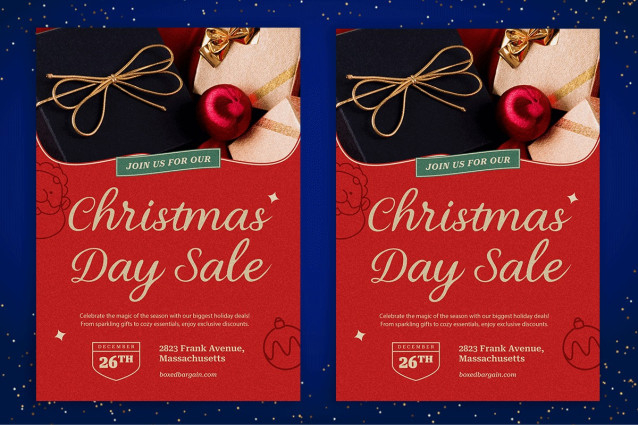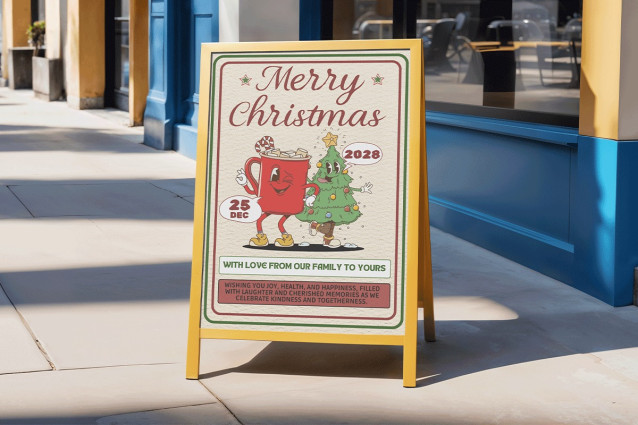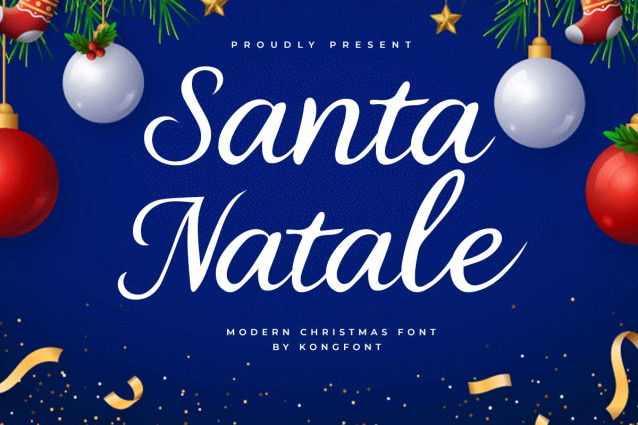
Santa Natale Script Font
Santa Natale Script Font is back with a new type of Christmas font. Santa Natale A Modern Script Font was designed to increase the variety of options available to users of the Christmas font. Of course, this is an advantage for the user, because the font you use is unique and modern. Santa Natale A Modern Script Font has characteristics like continuous Latin writing. It looks aesthetic, elegant, and smooth. Atlantis font is also suitable to be called a modern font. The appearance is advisable to be combined with a variety of contemporary products. Given how interesting the characteristics are, Santa Natale A Modern Script Font is one of the best Christmas fonts when used in clothing items designs such as t-shirts, jackets, and hoodies). In addition, it is suitable to be combined with several products, such as hats, souvenir bags, and handmade products. Font Kong provides a Script font for digital and print use. Both of them will not eliminate the element of beauty and aesthetics evoked by the Santa Natale A Modern Script Font. We can apply Santa Natale A Modern Script Font digitally to several things, such as digital party invitations that will be sent to guests. This font will give the impression of elegance and seriousness that the party maker wants to convey. This will attract interest and add to the impact of readers of this font. Our script and signature fonts collection is compatible to use as Figma fonts, Canva fonts, Freepik Fonts, and Adobe Fonts. They also work as Windows Fonts and Apple Fonts. For your social media needs, you can use and install fonts in our collection of Embroidery fonts to use as Instagram Fonts, Facebook Fonts, and Twitter Fonts.